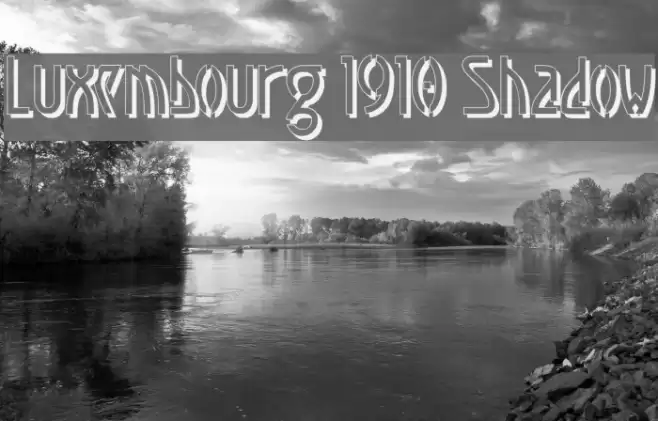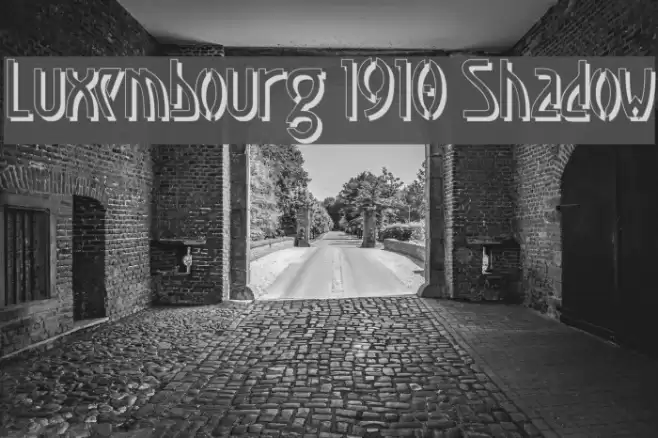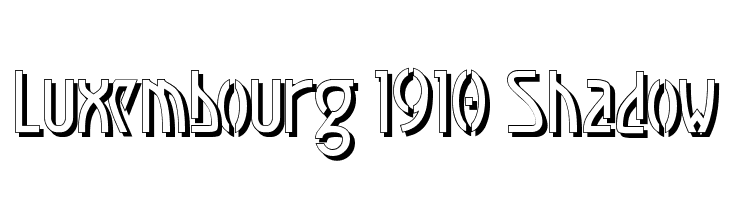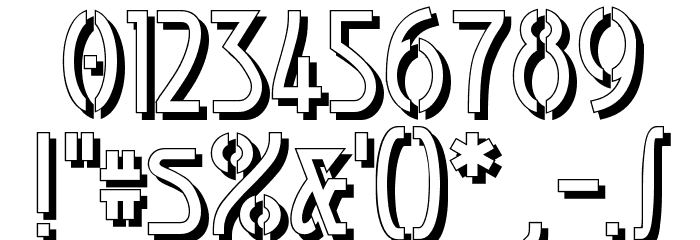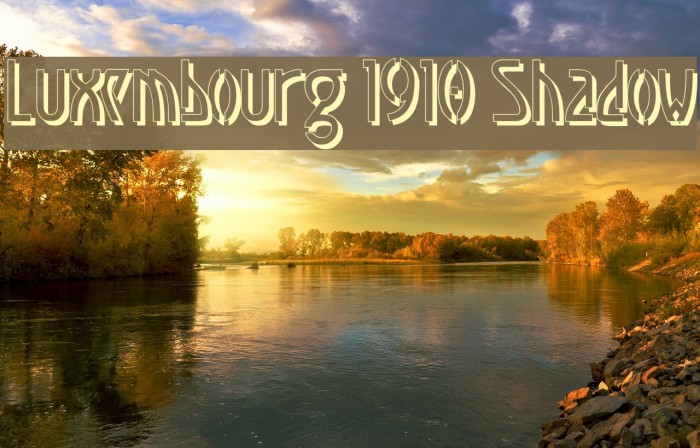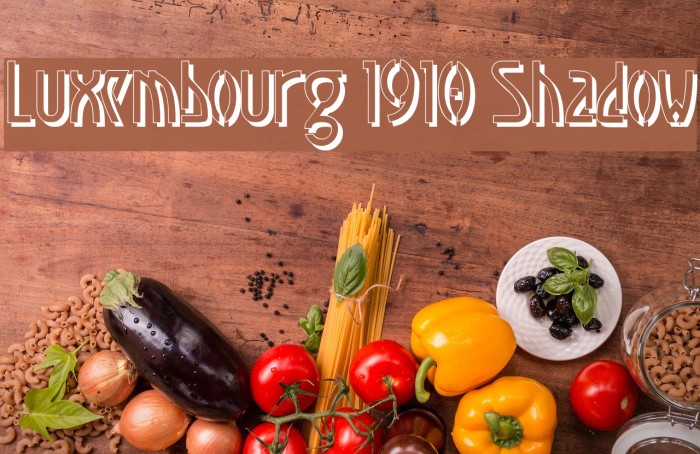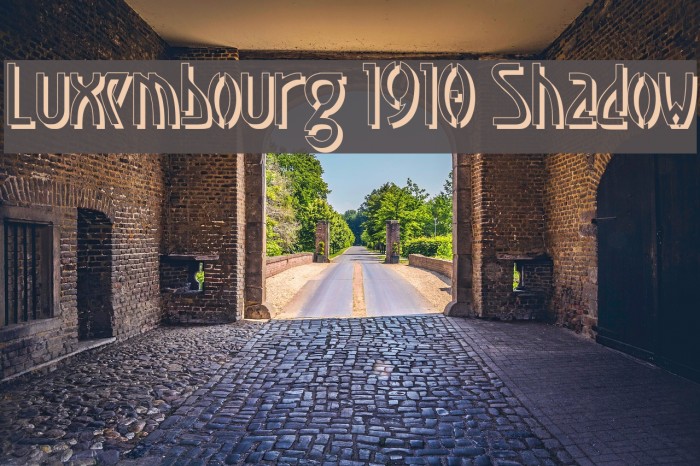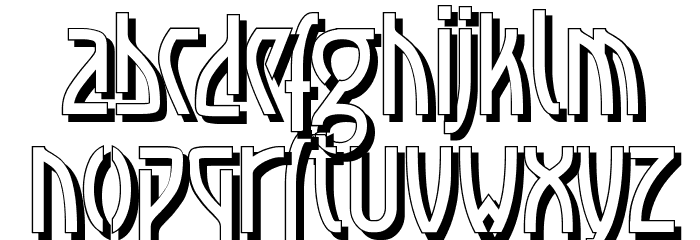
Luxembourg 1910 Shadow Font
Luxembourg 1910 Shadow Description
This font features a bold, shadowed design that combines elements of both modern and vintage styles. The characters are outlined with a distinct shadow effect that adds depth and dimension, making each letter stand out prominently. The uppercase and lowercase letters maintain a consistent style, with angular and geometric shapes that give the font a unique and artistic flair. The numbers and special characters follow the same design principles, ensuring a cohesive look across all elements. This font is particularly suitable for projects that require a strong visual impact and a touch of retro elegance.
A bold, shadowed font with a modern-vintage style and geometric shapes from Uncategorized fonts.
- Proposed Projects: Ideal for posters, logos, headlines, and any design needing a striking visual impact.
- Overall Style: Modern, Vintage